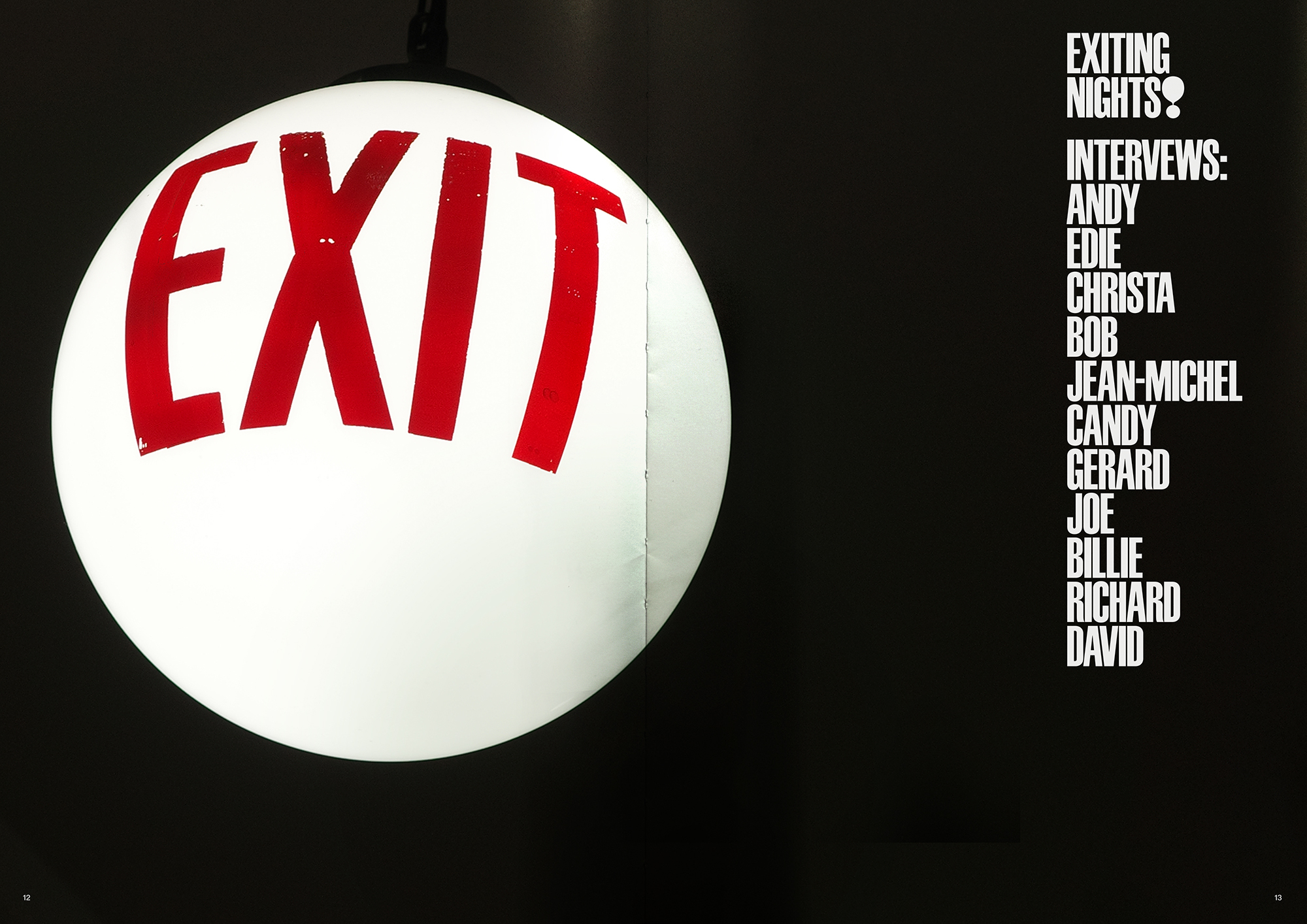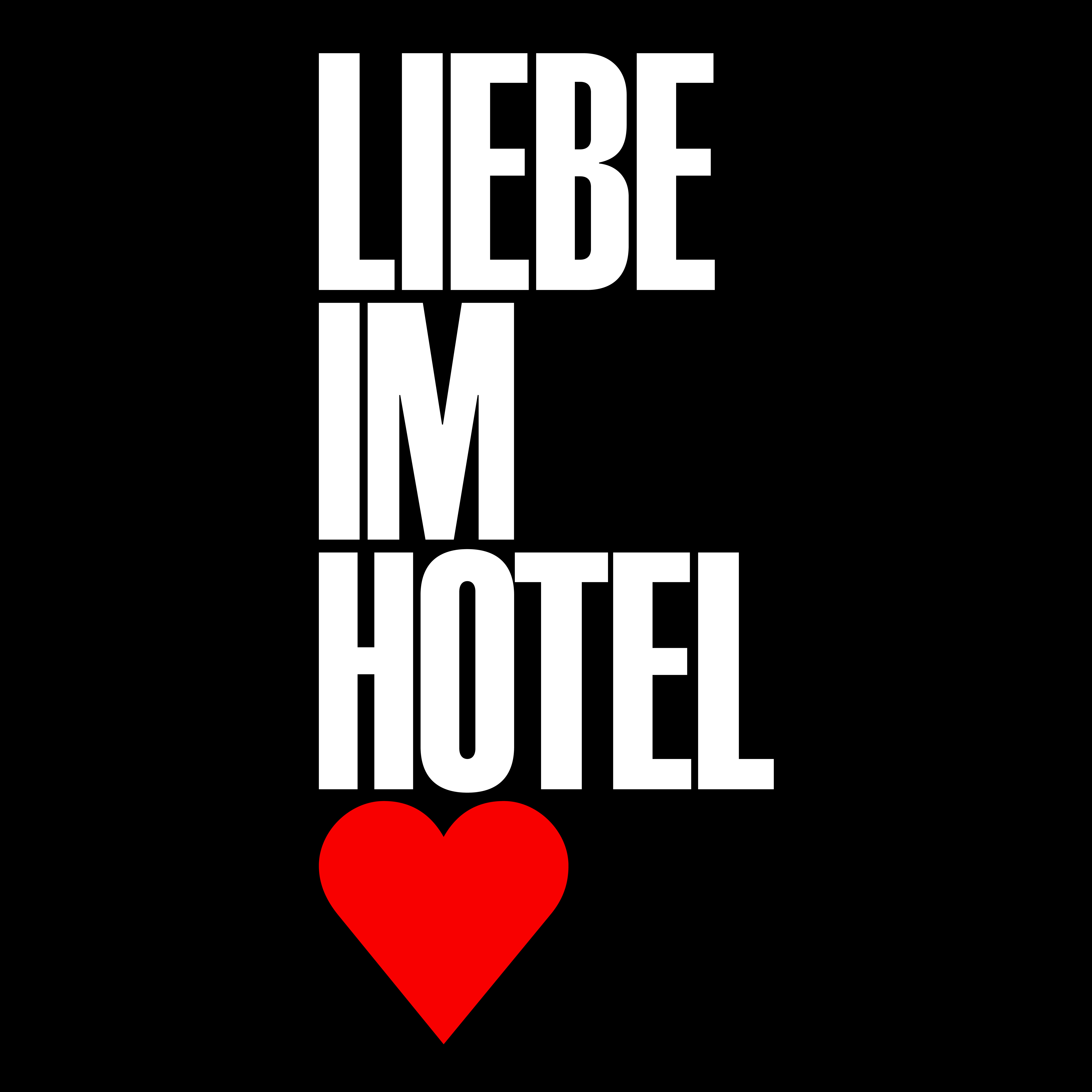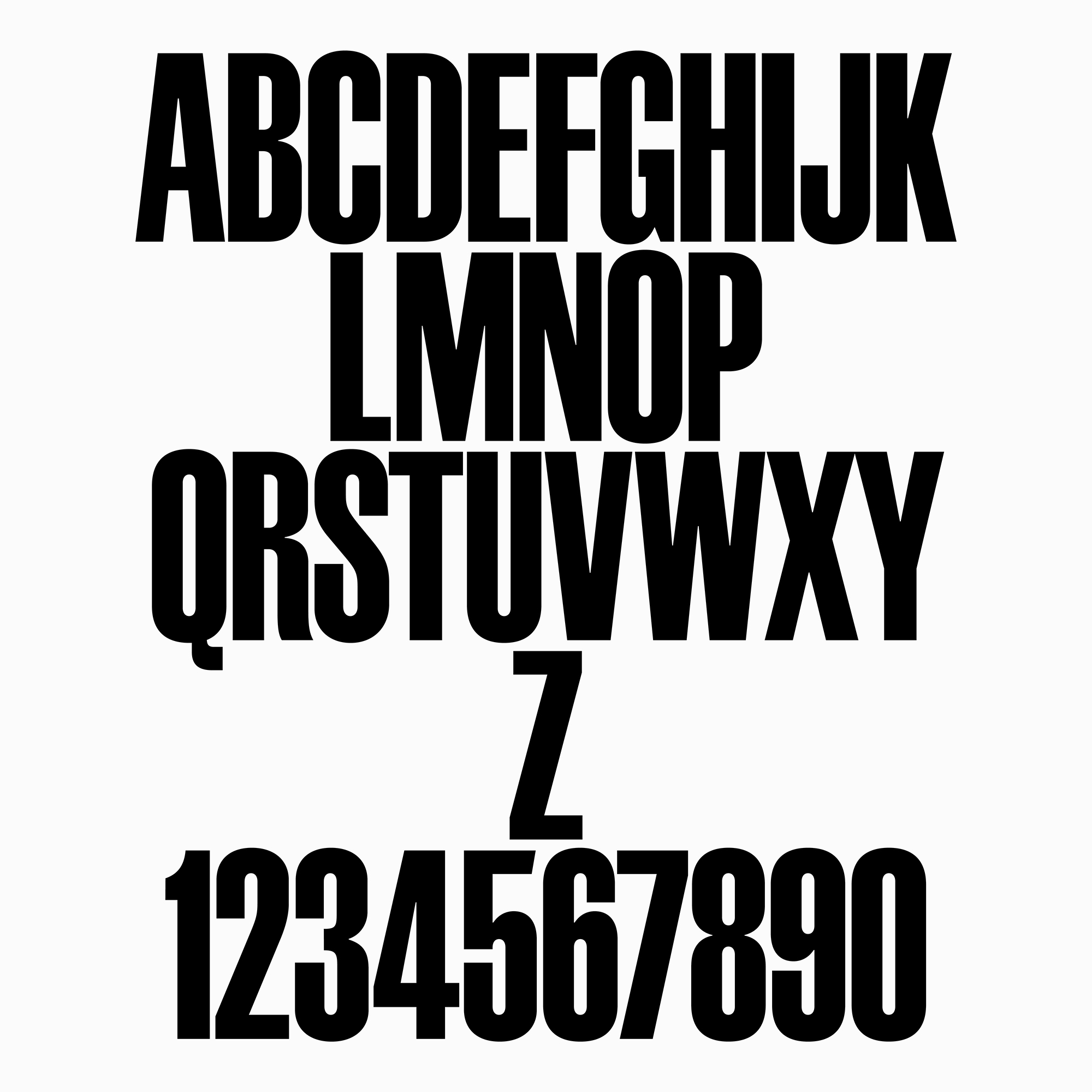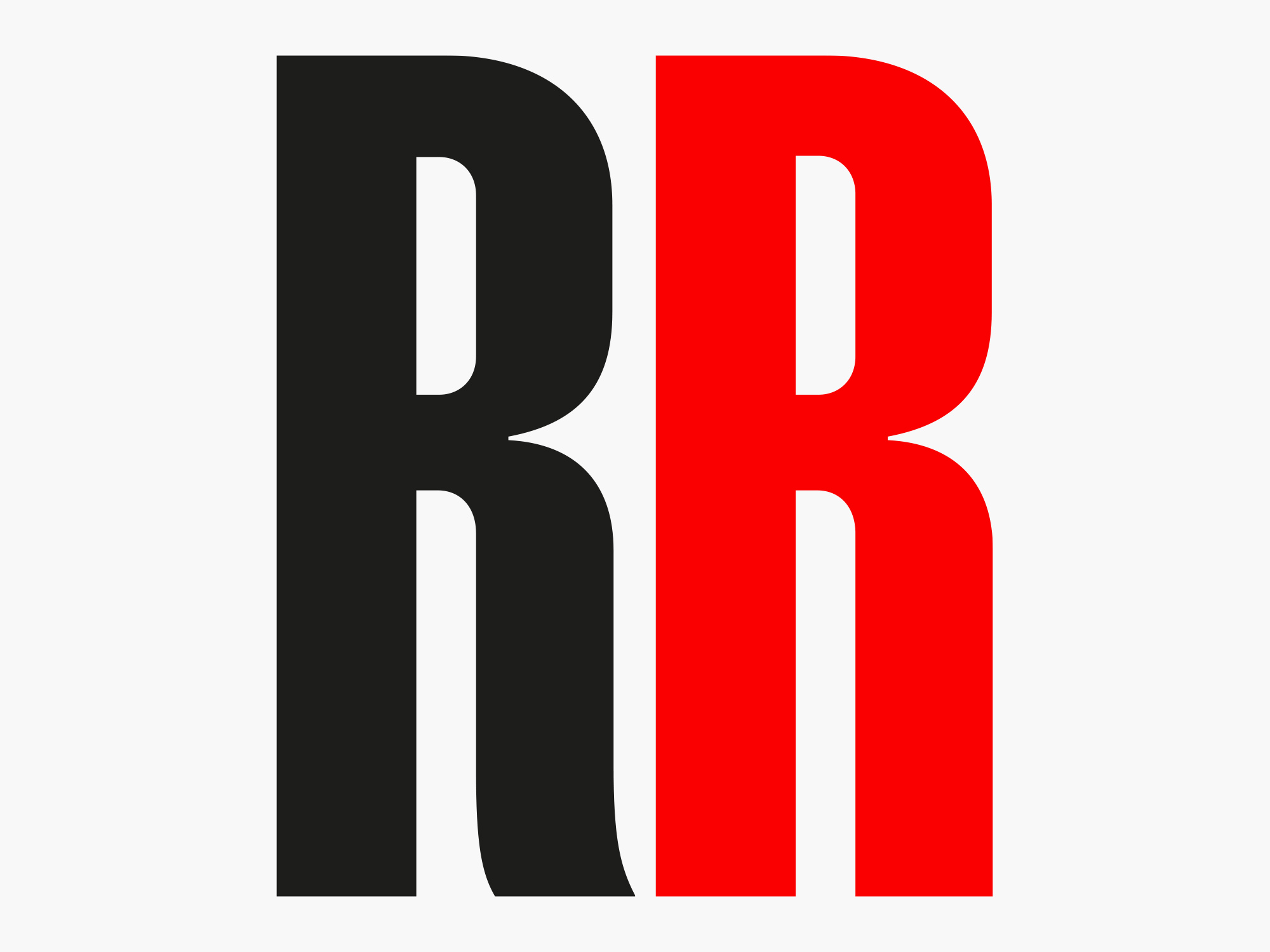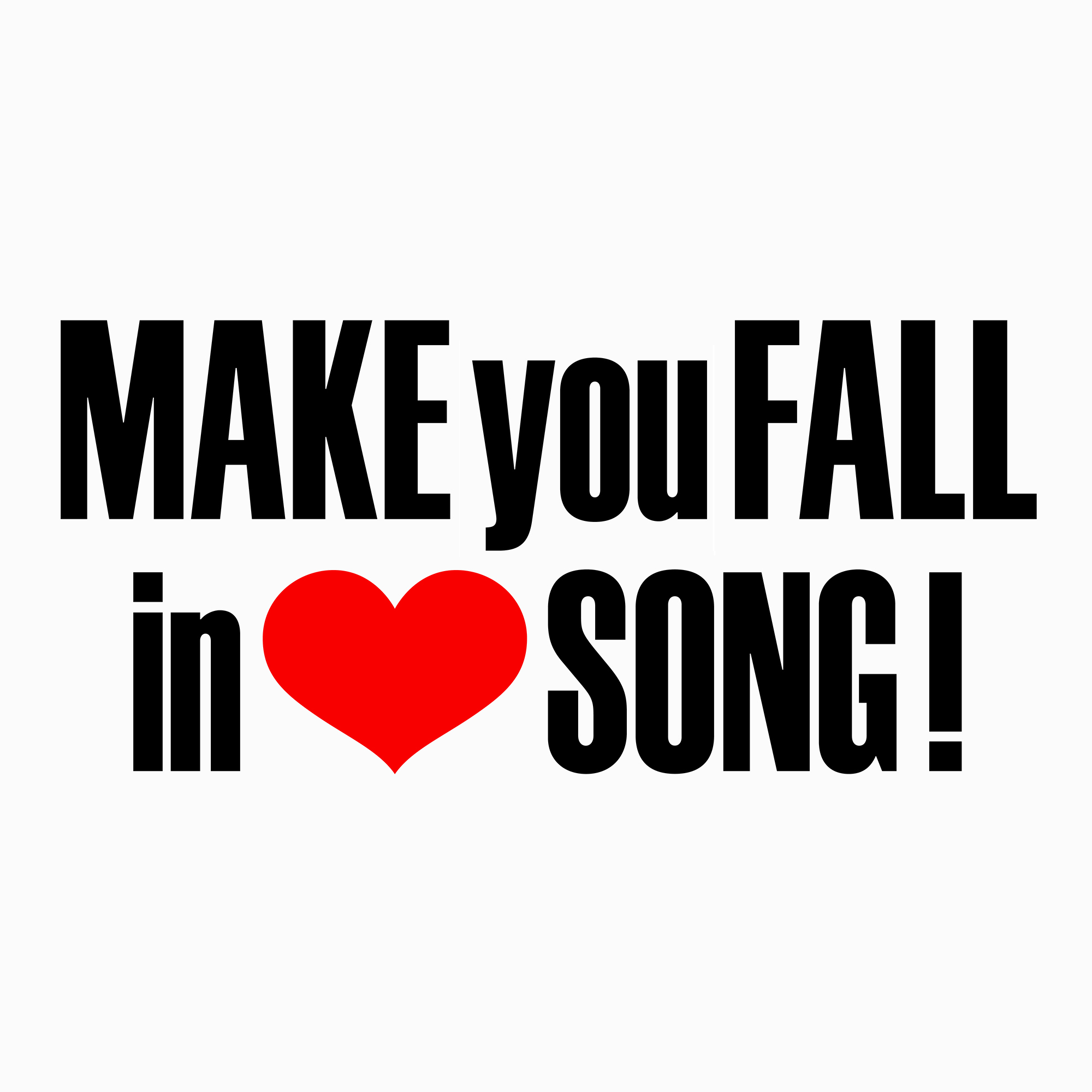
Schmalfette Grotesk
Schmalfette Grotesk Italic
Schmalfette Grotesk Variable
Schmalfette Grotesk
About Schmalfette Grotesk
The original Schmalfette Grotesk was designed in 1954 by the Swiss designer Walter F. Haettenschweiler. Strongly inspired by late nineteenth-century American wood types, this typeface has since become an icon of phototypesetting, leaving a lasting impression on generations of readers and designers.
This updated version also draws on the work of Willy Fleckhaus for Twen, the magazine published in West Germany from 1959 to 1971, devoted to popular culture, fashion, photography, and glamour. It pays tribute to the magazine’s editorial design, which made bold use of Schmalfette Grotesk in capitals, with particularly careful handling of German punctuation and diacritics.
This new version stays as close as possible to the spirit of the original drawing, which existed only in uppercase, and adds a complete lowercase set. It is released with several stylistic sets: titling diacritics, below-cap diacritics, and three punctuation sets.
This update was reviewed and approved by the Museum für Gestaltung in Zurich as well as by the Haettenschweiler family, as a respectful revival of Walter F. Haettenschweiler’s original Schmalfette Grotesk.
With its tight letter spacing, characteristic of the timeless aesthetic of the mid-twentieth century, Schmalfette Grotesk is ideally suited to contemporary titling and logotypes.
DesignersWalter F. Haettenschweiler, 1954
(Uppercases and Numbers)
Guillaume Sbalchiero, 2017—2026